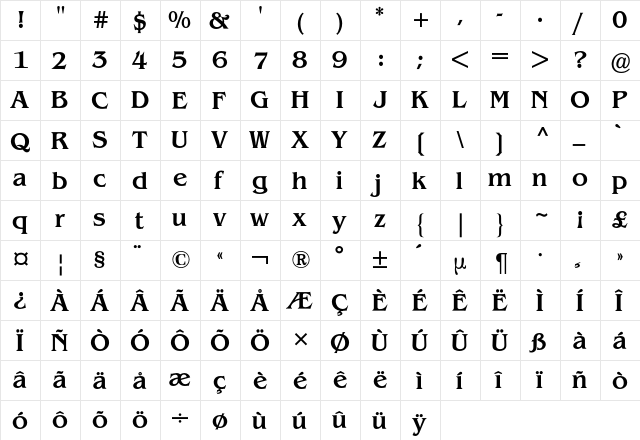
Benguiat BQ Regular Font Preview
Benguiat BQ Regular
Benguiat BQ Regular Font Details
Design Context for Benguiat BQ Typeface
Benguiat BQ offers clean, dependable letterforms without strong stylistic allegiance, making it a practical choice for designers who need flexibility.
Pro Tip: Use Benguiat BQ in both headline and body roles to test its range before committing to a single application.